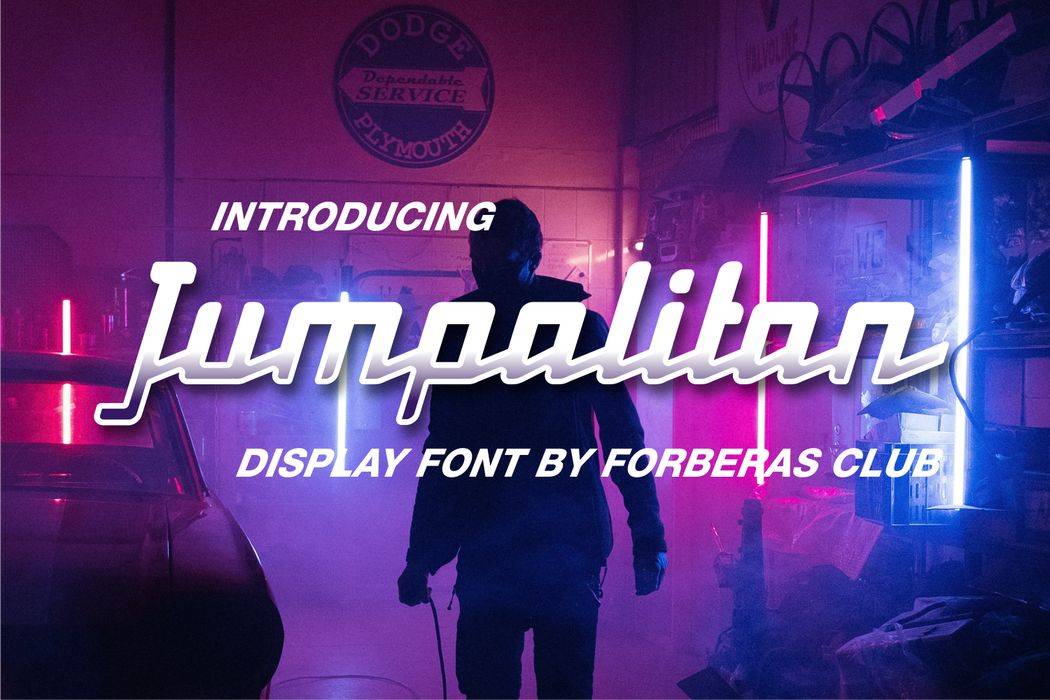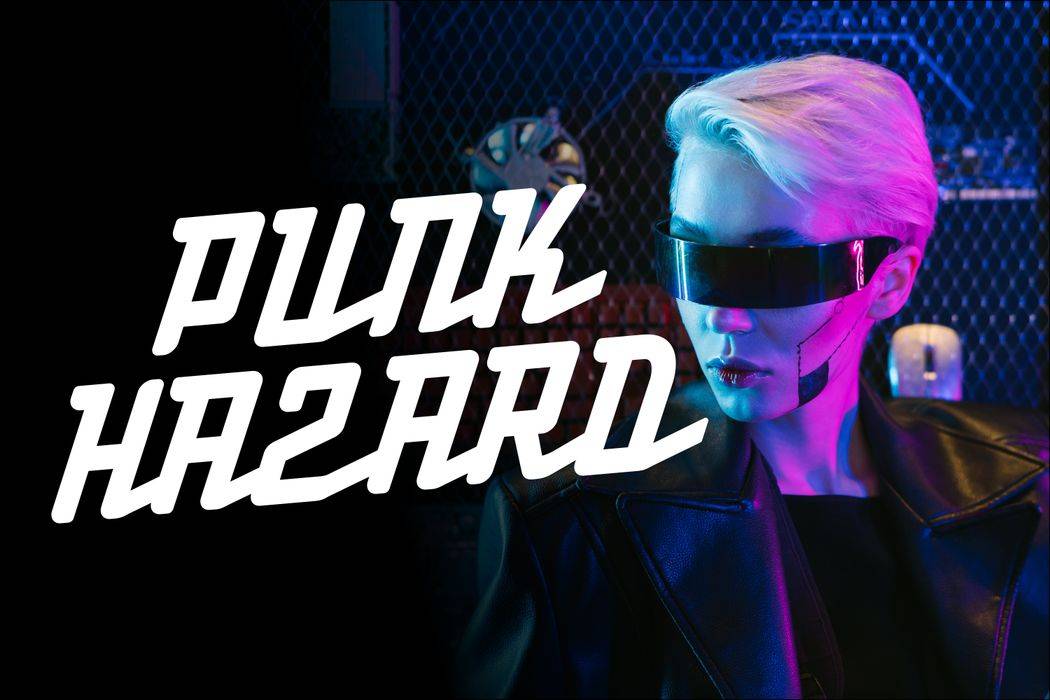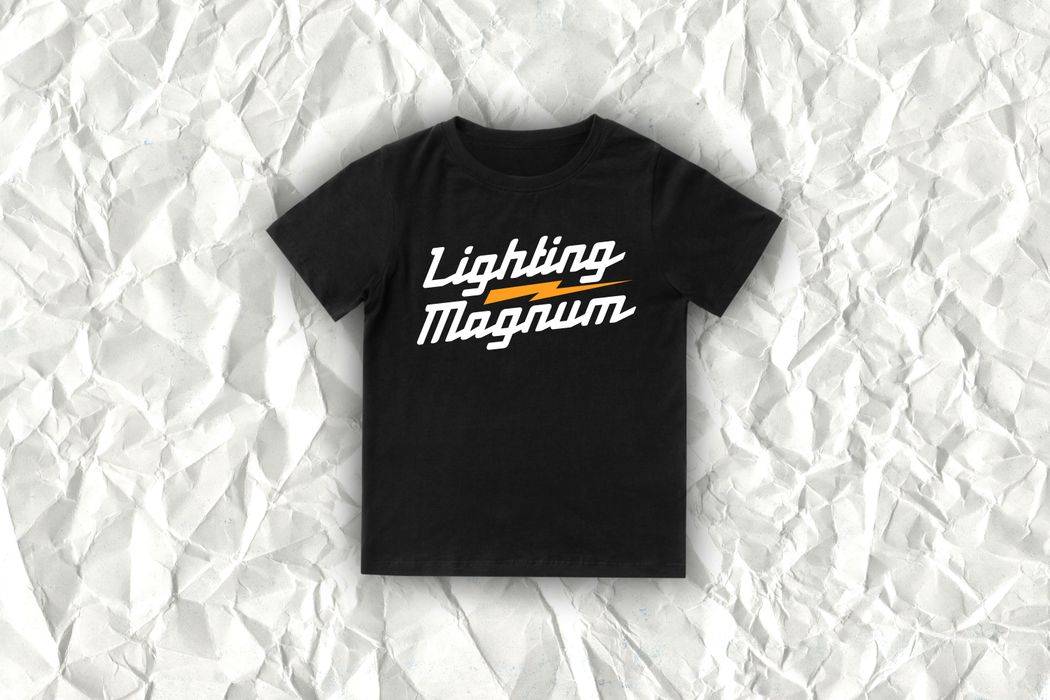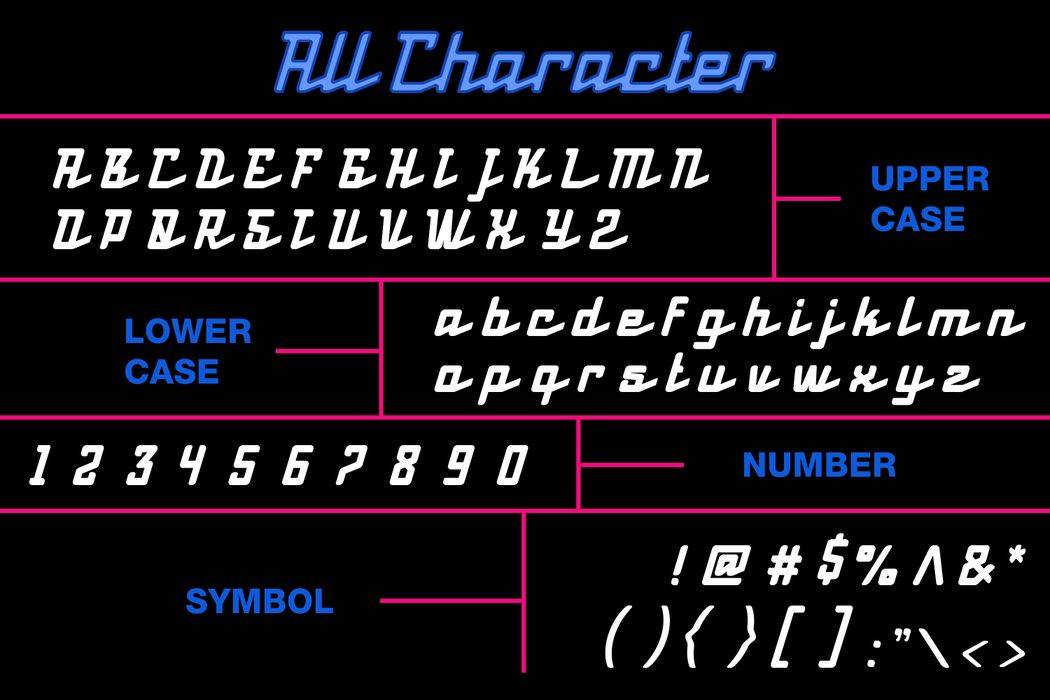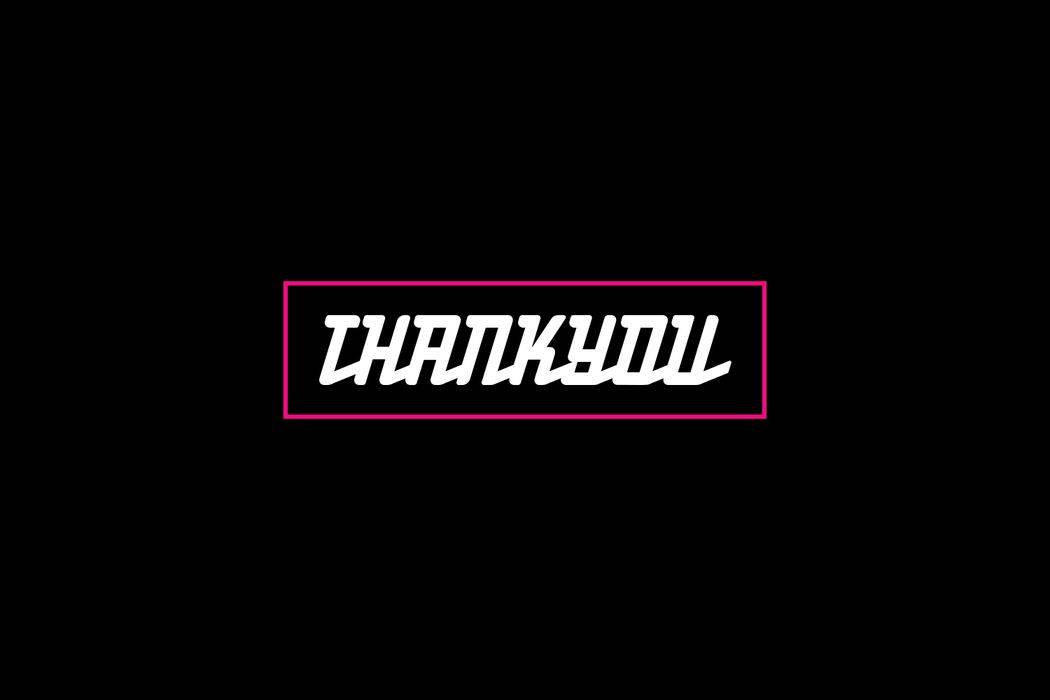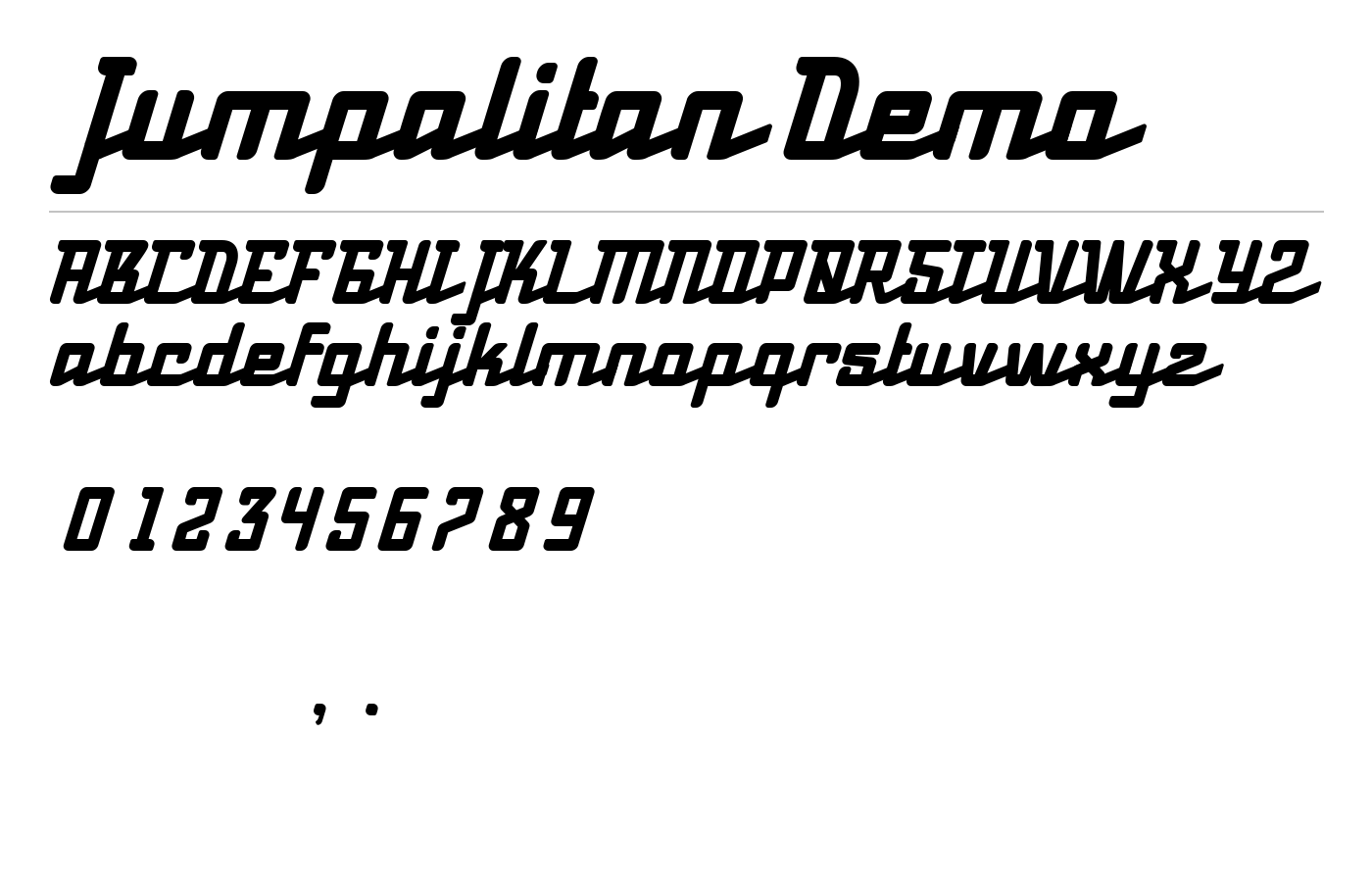
Jumpalitan is a bold, condensed script font with a smooth, connected style that combines modern geometric shapes with a sporty, dynamic flair. Its angled letterforms and consistent stroke weight give it a sense of motion and energy, making it ideal for logos, branding, and headlines that seek a contemporary yet playful vibe. This font works well where a distinctive, handwritten feel with a sleek, streamlined look is needed to stand out.
Jumpalitan Font
About Jumpalitan Font
| Font family | Jumpalitan Font |
| Designer | Forberas |